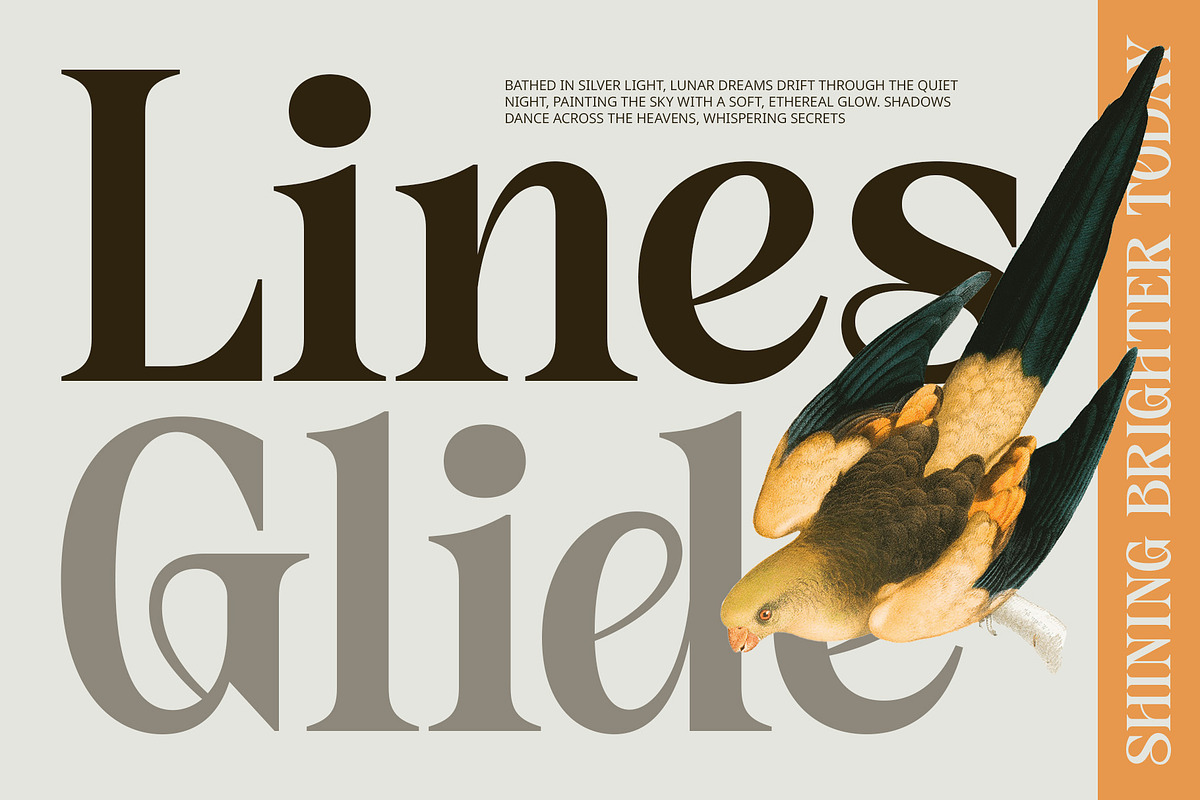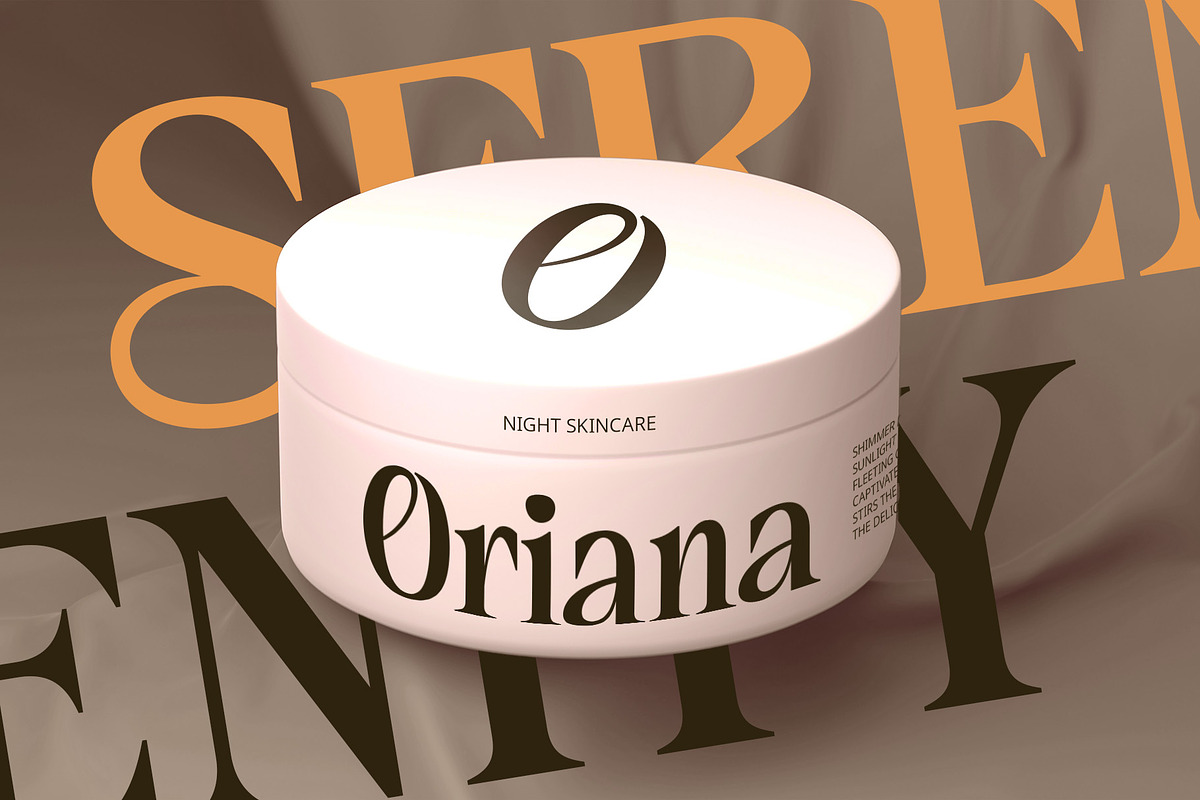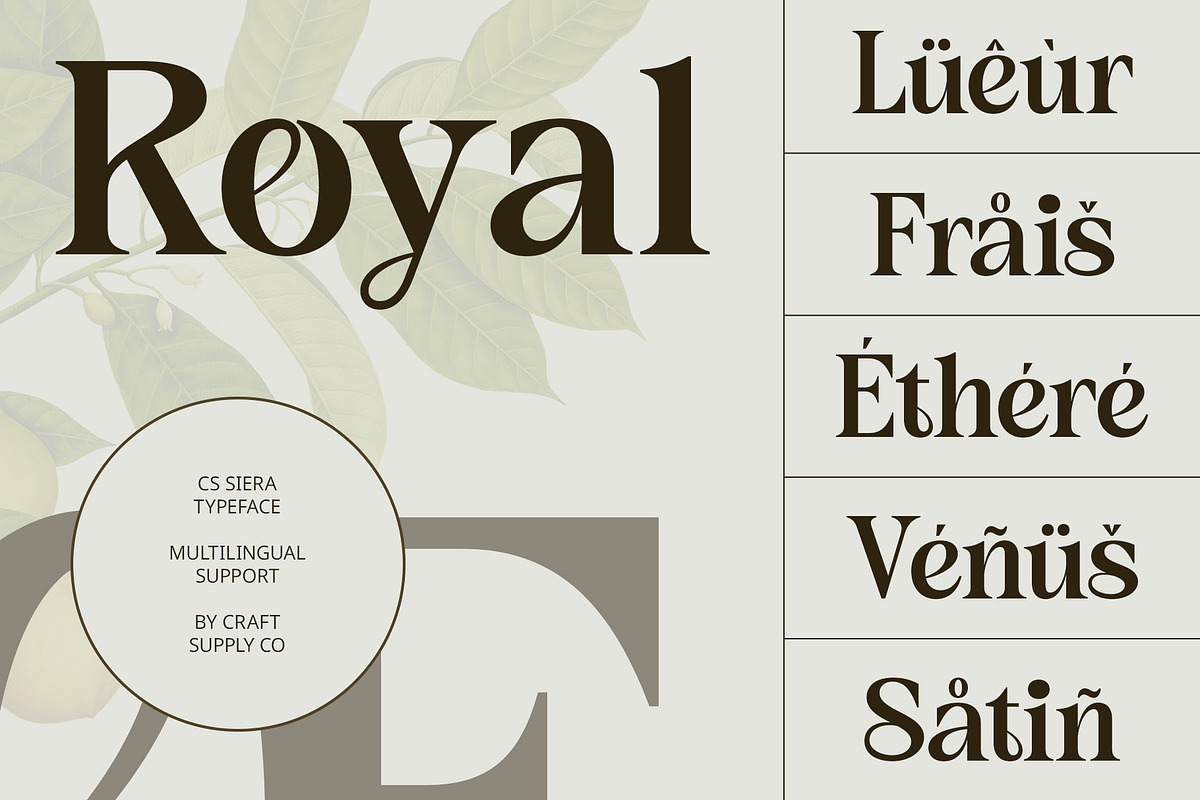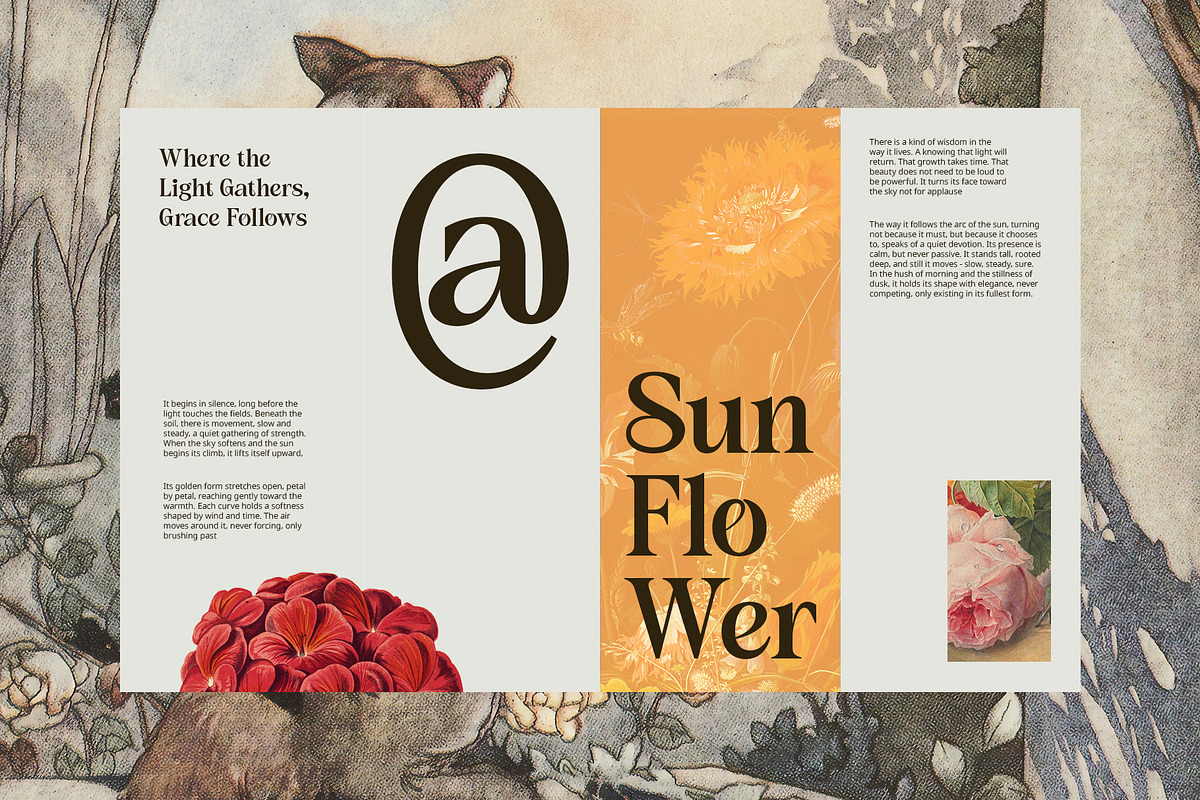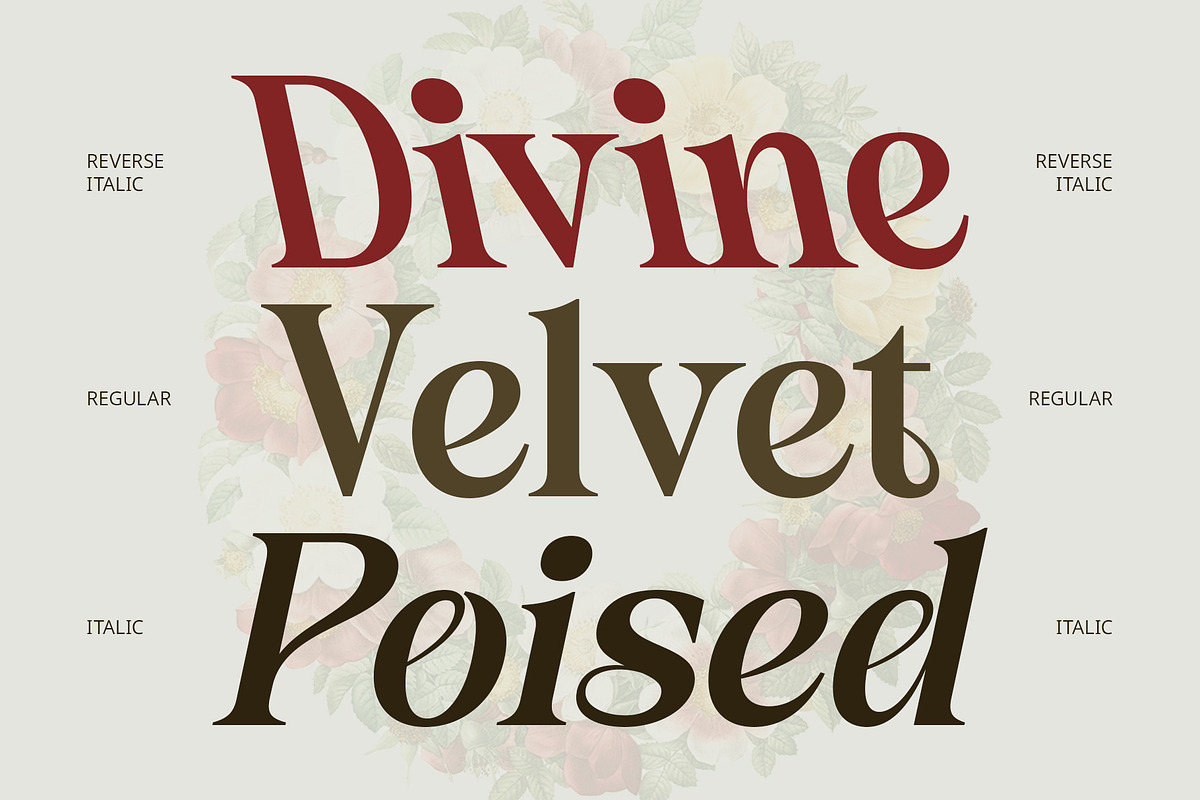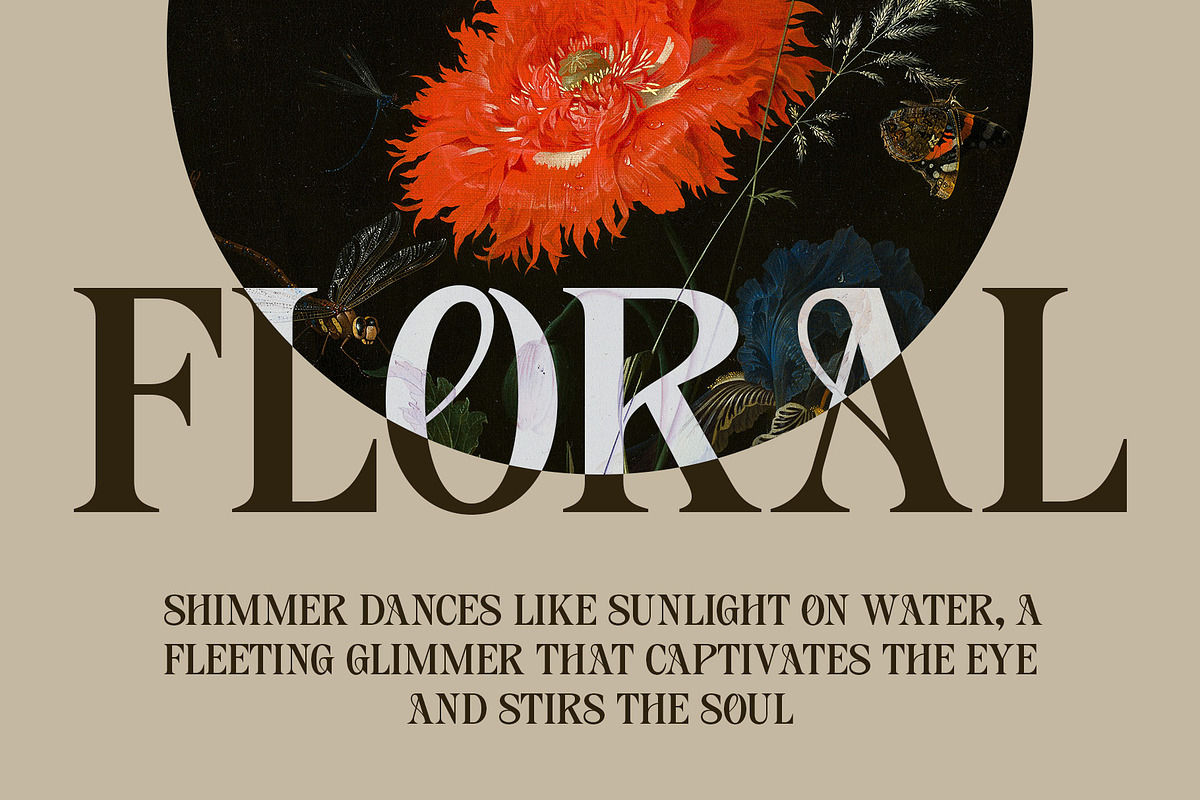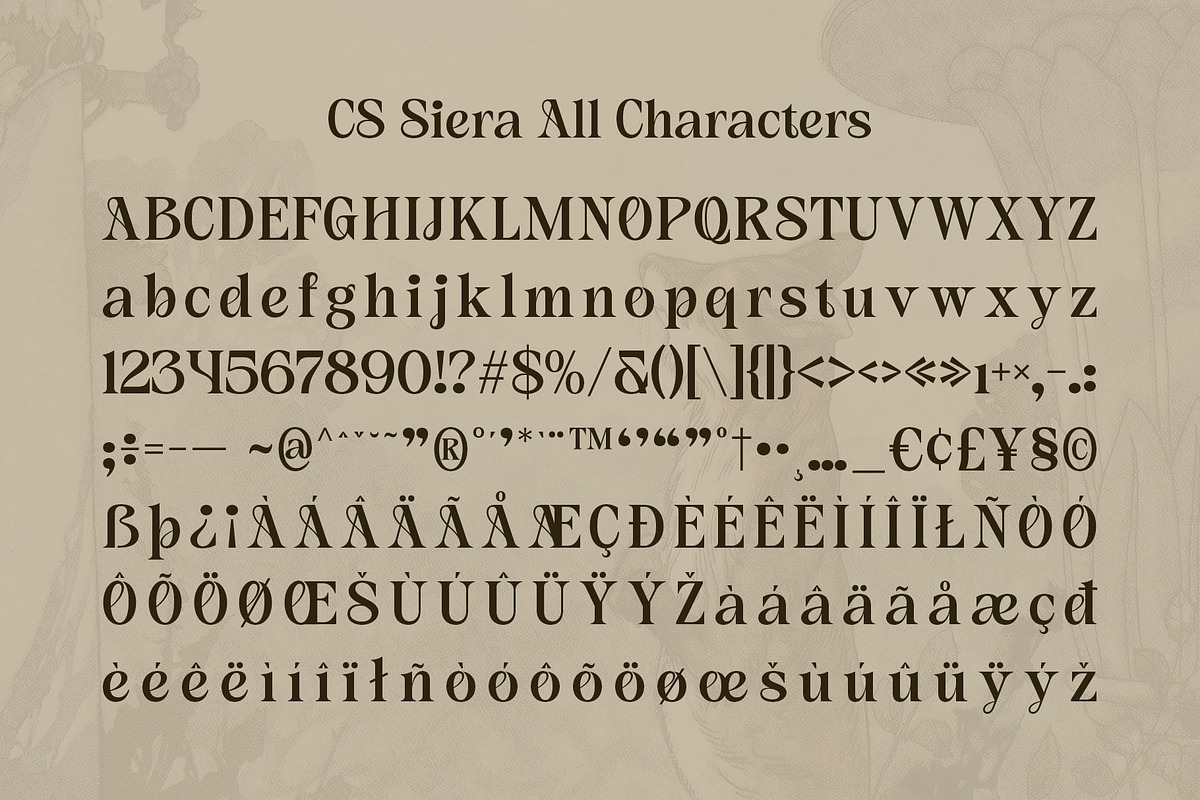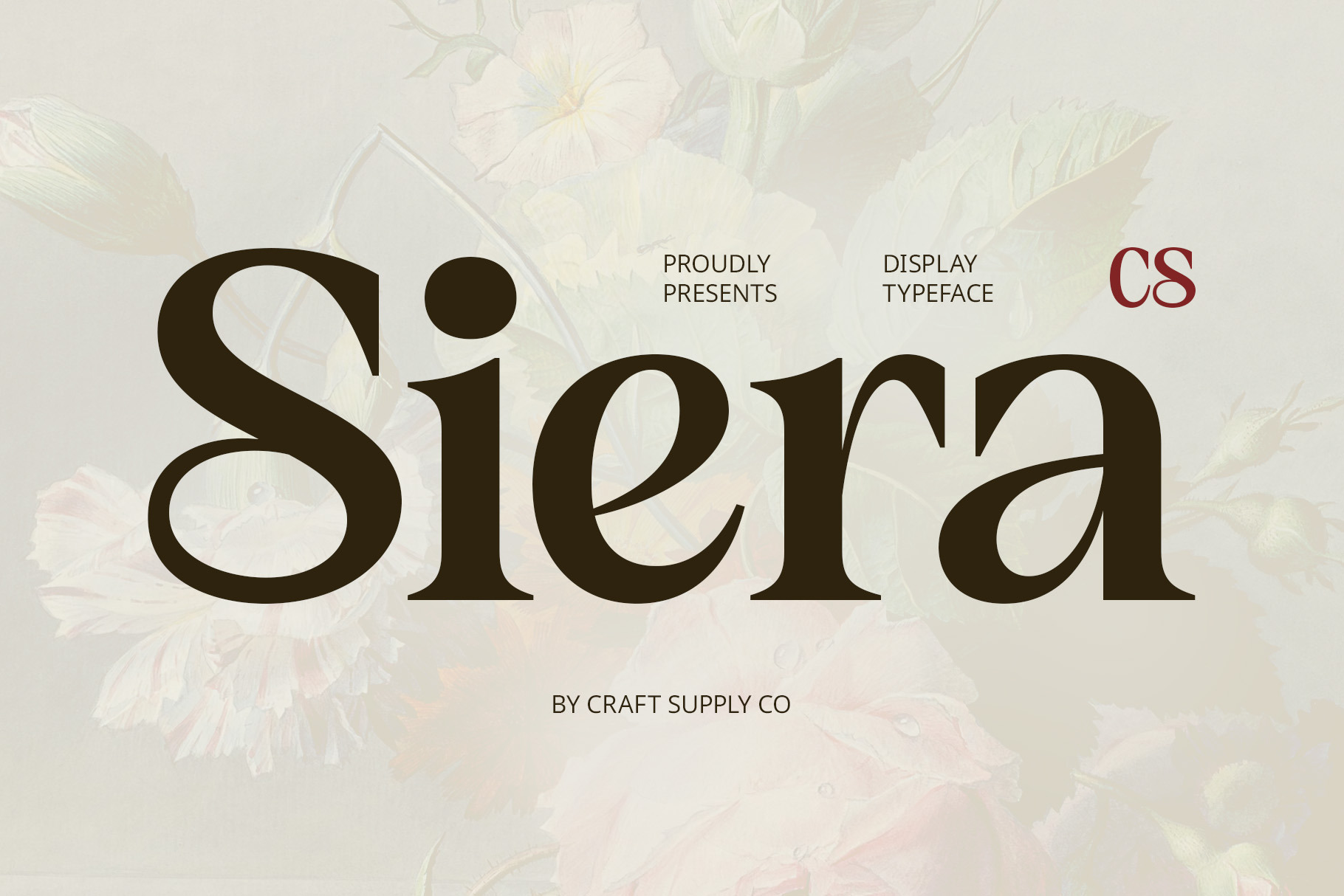
CS Siera – Art Nouveau Font
CS Siera – Art Nouveau Font: Elegance with Ornamental Beauty
Inspired by the Elegance of Art Nouveau CS Siera is a modern display serif font that draws from the ornamental beauty of the Art Nouveau style. Featuring graceful, flowing curves and intricate detailing, it evokes a sense of sophistication and timeless charm.
Flowing Curves and Ornamental Details The elegant curves of CS Siera enhance its legibility and visual appeal, offering a delicate balance between modern readability and artistic expression. Ornamental flourishes within the letterforms add an intricate, almost whimsical quality, ideal for designs seeking to capture attention with grace and artistry.
Perfect for High-End, Artistic Designs CS Siera is perfect for high-end branding, editorial layouts, and artistic projects where sophistication is key. Whether it’s for beauty branding, luxury magazine covers, or visually rich editorial designs, this font brings elegance and style to any project. Its timeless aesthetic makes it equally suitable for both contemporary and vintage-themed designs.
Refined and Sophisticated with a Captivating Presence With its striking mix of contemporary and ornamental elements, CS Siera exudes a refined presence that enhances the aesthetic appeal of any design. Ideal for projects that require both beauty and impact, it ensures your message is communicated with flair and artistic depth.
- CS Siera Regular
- CS Siera Italic
- CS Siera Reverse Italic